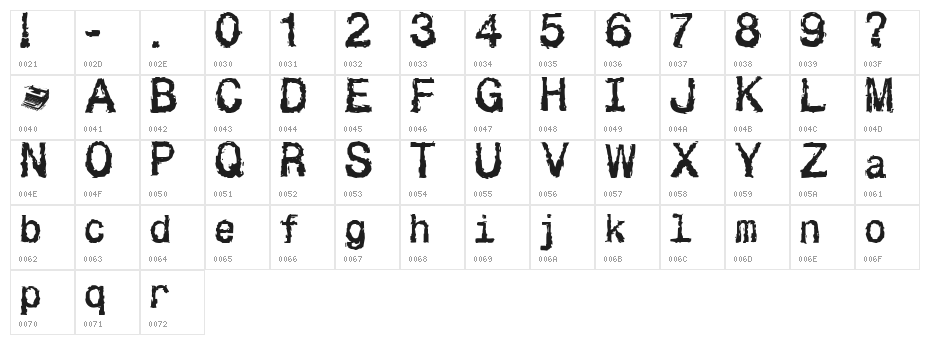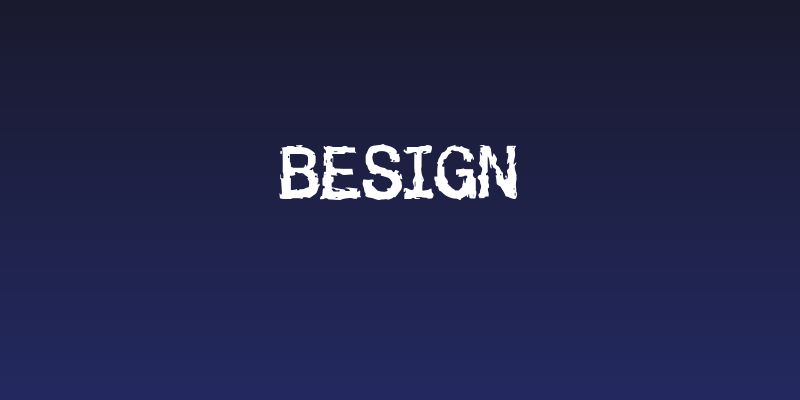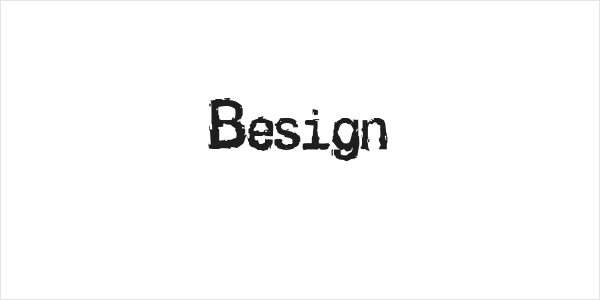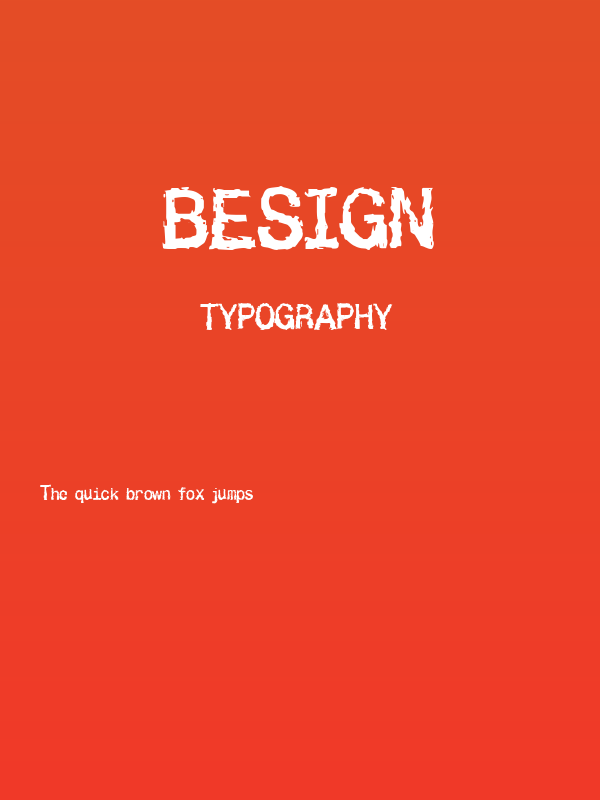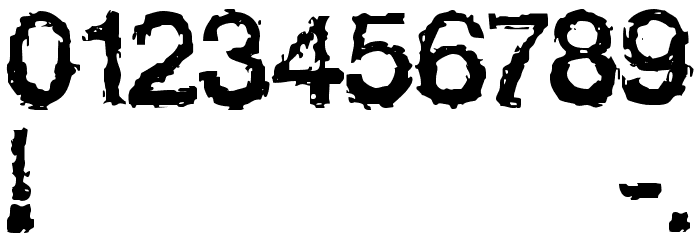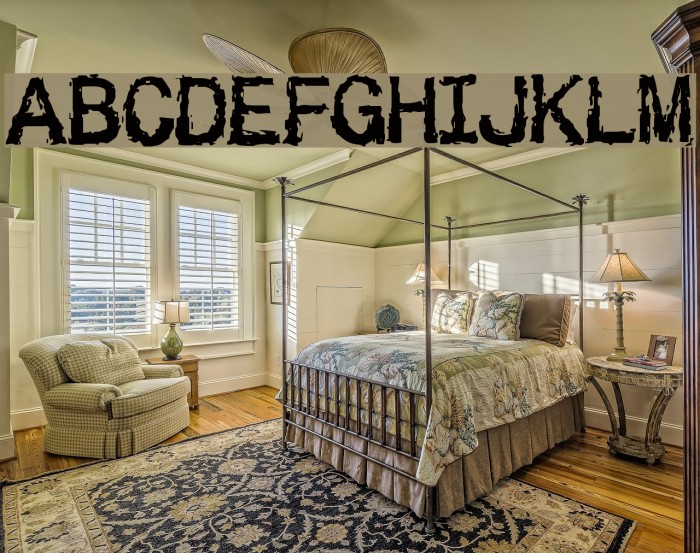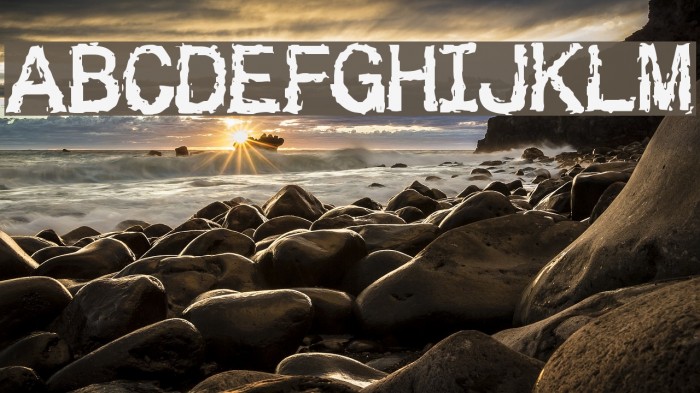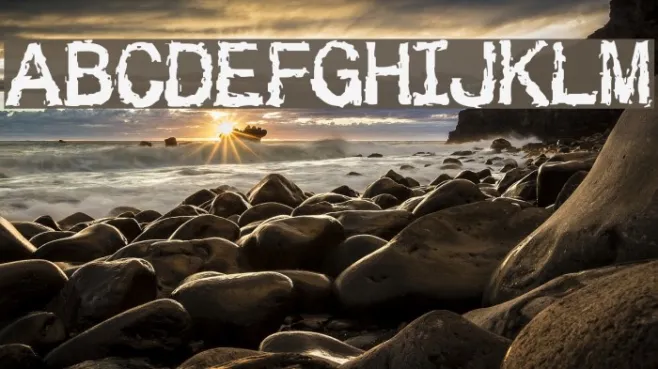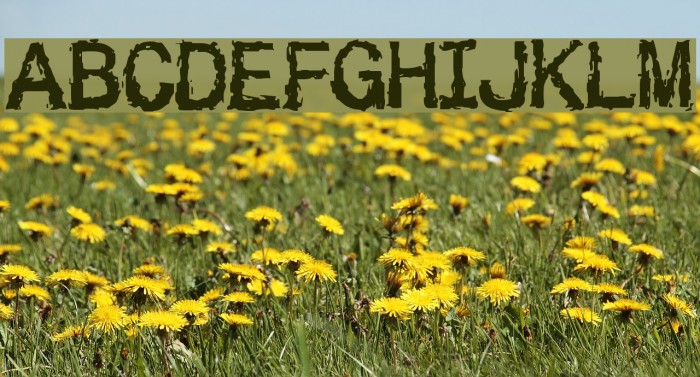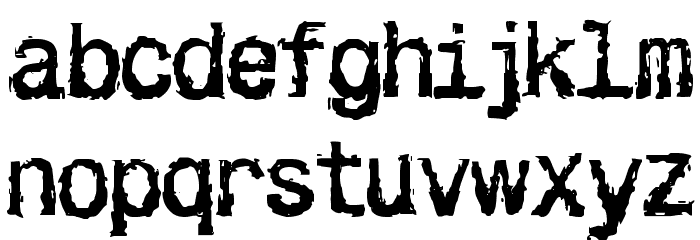
Besign Font
Besign Description
This font features a rugged and distressed appearance, with each character exhibiting a textured, worn-out look. The uppercase and lowercase letters maintain consistent proportions, while the numbers and special characters follow the same stylistic approach. The font's design gives off a gritty, urban vibe, making it ideal for projects that require a bold and edgy aesthetic. Its unique style is characterized by irregular edges and a hand-crafted feel, which adds a layer of authenticity and rawness to any design.
| Use Case | Logos, Headlines, Posters |
| Proposed Projects | Ideal for album covers, posters, street art designs, and branding projects that require a bold, edgy aesthetic. |